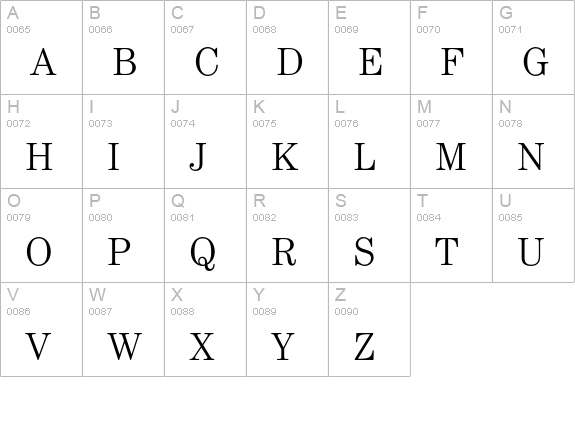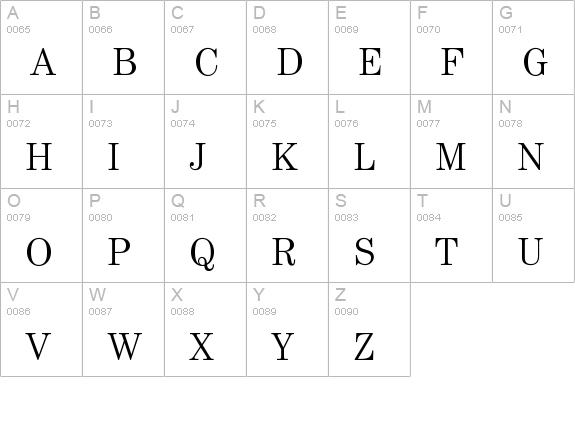
CenturyEF-Light is a refined, elegant variant in the CenturyEF typeface family \xE2\x80\x94 well suited to elegant body text, refined sub-headings, and luxury branding.
CenturyEF-Light is a sleek and elegant font that exudes sophistication and modernity. Its thin and delicate strokes give it a refined appearance, making it perfect for projects that require a touch of grace and style. Whether used for branding, editorial design, or any other creative endeavor, CenturyEF-Light will elevate your work to new heights. The best part? CenturyEF-Light is completely free to download at FontsMarket.com. This means you can easily access this high-quality font without any cost, making it a valuable addition to your font library. Don't miss out on this opportunity to enhance your designs with the beauty of CenturyEF-Light.